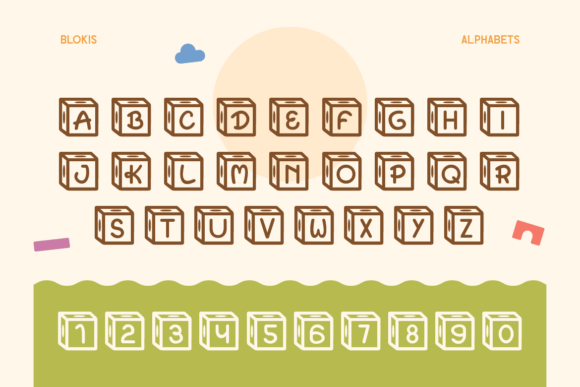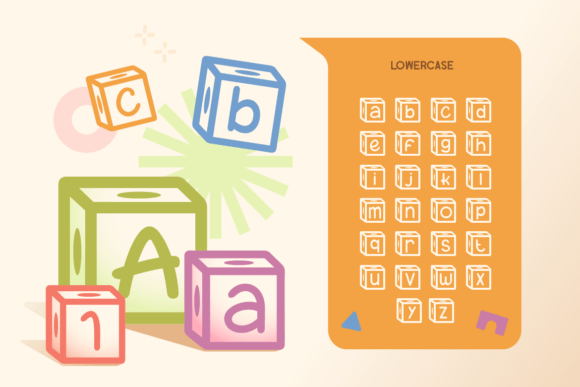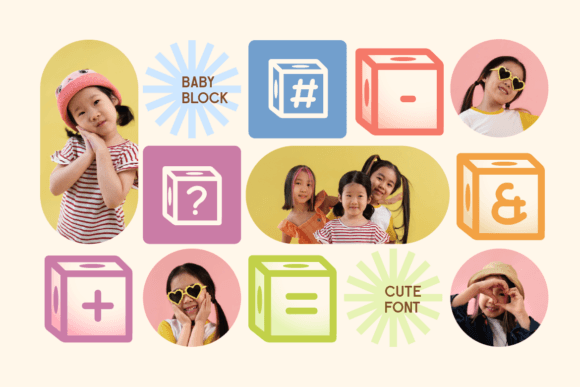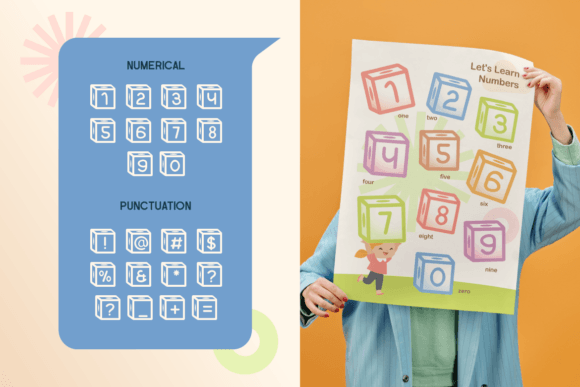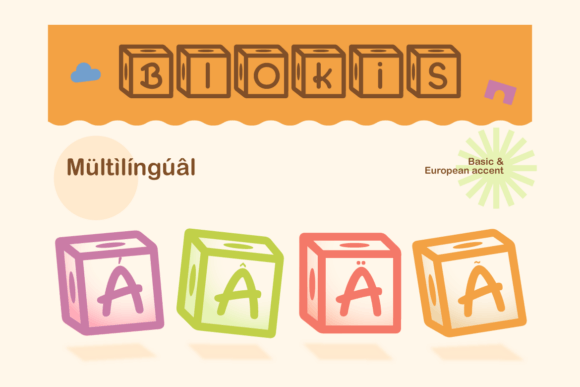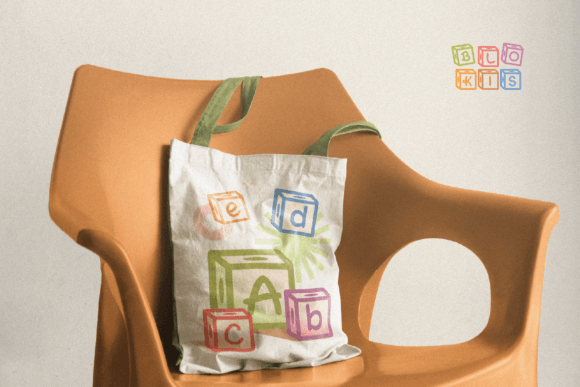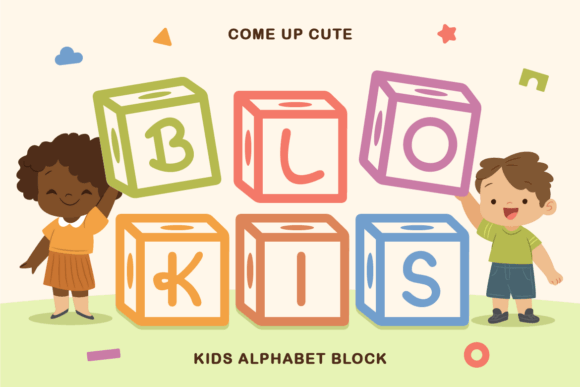
Where Creativity Meets Playfulness: The Blokis Font
Do you remember the thrill of creating your first handmade card for a loved one? The excitement of using colorful markers and scissors to bring your imagination to life? For designers, that same sense of creativity and playfulness is what makes a project truly special. And when it comes to capturing that essence, one font stands out from the rest: Blokis.
Designed to evoke a sense of youthful energy and fun, Blokis Font is perfect for anyone looking to add a playful touch to their design. Whether you’re working on a children’s book, educational materials, or a fun logo, this bold and blocky font is sure to bring a smile to your audience’s face. With its simple yet effective design, Blokis Font makes reading a breeze, making it a valuable addition to any designer’s toolkit.
- Character Set: The font includes a comprehensive set of characters, including uppercase and lowercase letters, numerals, punctuation marks, and special characters, making it suitable for a wide range of applications.
- Unique Characteristics: The font features a distinctive geometric design with rounded edges, giving it a modern and minimalist appearance that is both stylish and versatile.
Blokis Font Review
I recently had the chance to work with the Blokis Font, and I must say it’s an interesting choice for designers. Here are my thoughts:
- Unique and quirky style: Blokis Font has a distinct, playful feel to it that can add a lot of personality to designs.
- Clear and legible: Despite its unusual shape, the font is surprisingly easy to read, making it suitable for body text.
- Perfect for creative projects: Blokis Font’s offbeat charm makes it a great fit for projects that require a bit of whimsy, such as children’s books or advertising campaigns.
- Limited versatility: While Blokis Font is great for creative projects, it may not be the best choice for more serious or professional designs, where a more traditional font may be more suitable.
- Not ideal for long blocks of text: Due to its quirky shape, Blokis Font can become overwhelming when used for large amounts of text.
Blokis Font is a fun and unique font that can add a lot of character to designs. While it may not be the best choice for every project, it’s definitely worth considering for creative and playful designs. Just be mindful of its limitations and use it thoughtfully.
Tips for Getting the Most Out of Blokis Font
Use Blokis Font for titles, headings, and other emphasis text to create a bold and eye-catching design.
Pair Blokis Font with other sans-serif fonts for a clean and modern look.
Blokis Font is commonly used in:
Graphic design projects, such as posters, flyers, and brochures.